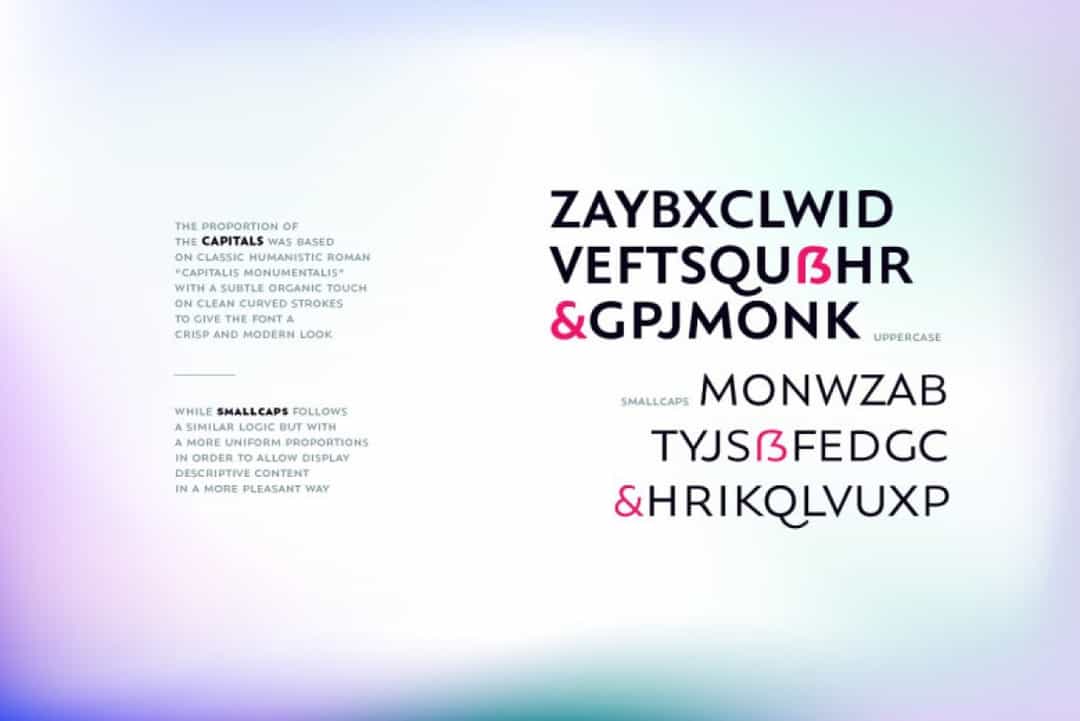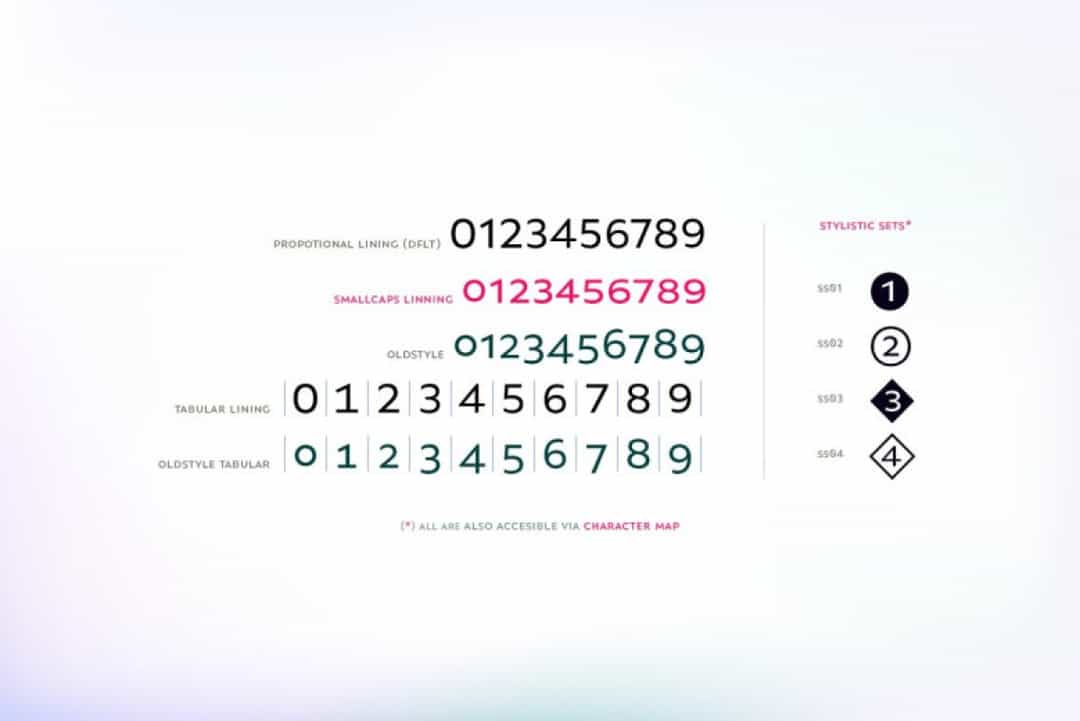
Low contrast, clear Roman Sans Serif font featuring capitals with classical Capitalis Monumentalis proportions with uniform, contemporary SmallCaps. A subtle touch of script gives it a soft and less squishy feeling for a natural, relaxed appearance. This design was conceptualized after 2013’s research on Roman Schemme, from which other roman typefaces such as Legan were drawn inspiration for.